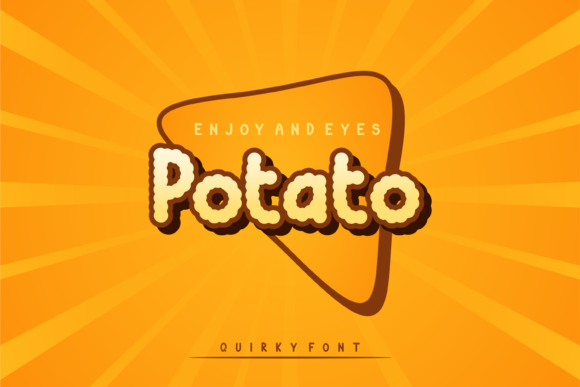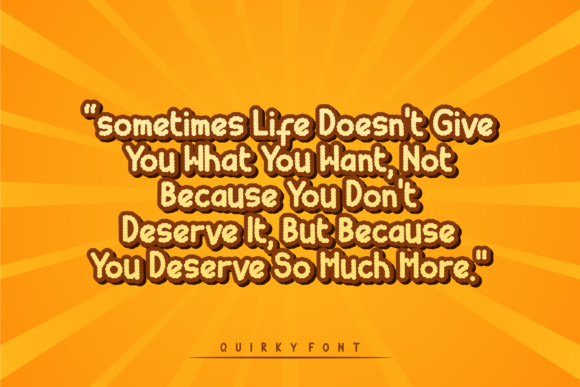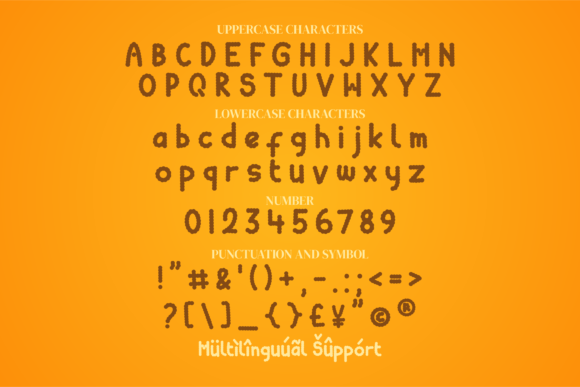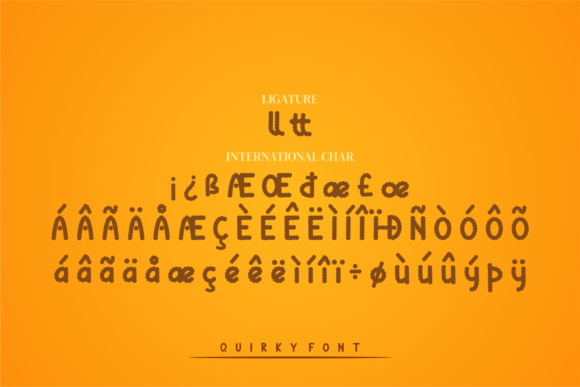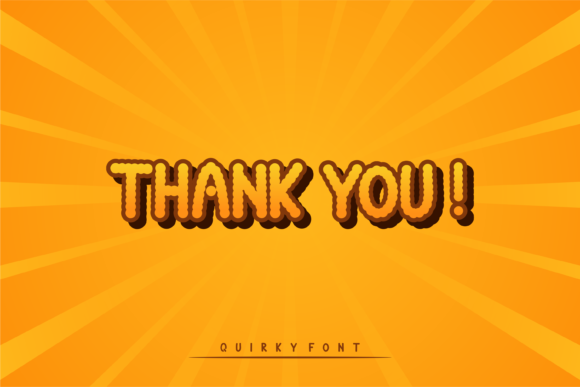
Introduction to Round Chips Font
Do you remember the feeling of excitement and satisfaction when you finally found that perfect design element that elevates your project to the next level? For designers, that moment is priceless. It’s the moment when everything comes together, and the end result is more than just aesthetically pleasing – it’s a masterpiece. And that’s exactly what the Round Chips Font is designed to do.
As a valuable addition to any designer’s toolkit, the Round Chips Font offers a unique blend of fun, creativity, and high-quality design. With its transparent background and free download options, it’s an ideal resource for any project, big or small. Whether you’re working on a high-profile campaign or a personal creative project, this font is sure to add that special something that sets your design apart from the rest.
So, what makes the Round Chips Font so special? Let’s dive in and explore this creative design resource that’s about to take your projects to new heights.
Key Features of Round Chips Font
- Unique, rounded shape with a transparent background, perfect for adding a touch of whimsy to designs.
- Designed with a focus on creativity and playfulness, making it an ideal choice for projects that require a fun and lighthearted tone.
- Can be used in a variety of design contexts, from digital to print, and is suitable for logos, icons, and other graphic elements.
Honest Review: Round Chips Font
As a designer, I’m always on the lookout for unique and high-quality design resources to elevate my creative projects. Recently, I had the chance to try out the Round Chips Font and I must say, it’s been a game-changer.
- ✨ The font has a clean and modern design that’s perfect for a wide range of creative projects.
- ✨ The transparent background option is a huge plus, allowing for seamless integration with any design.
- ⚠️ The font may not be suitable for projects that require a more formal or traditional look.
- ⚠️ Some users may find the font to be a bit too playful or quirky.
Overall, I’m thoroughly impressed with the Round Chips Font and would highly recommend it to any designer looking for a unique and high-quality design resource. Whether you’re working on a creative project or just need a fresh perspective, this font is sure to deliver.
Tips for Getting the Most Out of Round Chips Font
To get the most out of Round Chips Font, experiment with different font sizes and colors to create a unique look. Use the font in combination with other design elements, such as images or shapes, to add depth and interest to your design. Additionally, consider using the font in a free download or template to save time and effort.
Common Use Cases for Round Chips Font
Round Chips Font is commonly used in creative projects, such as logo design, social media graphics, and presentations. It’s also used in design resources, such as templates and free downloads, to add a touch of modernity and sophistication.